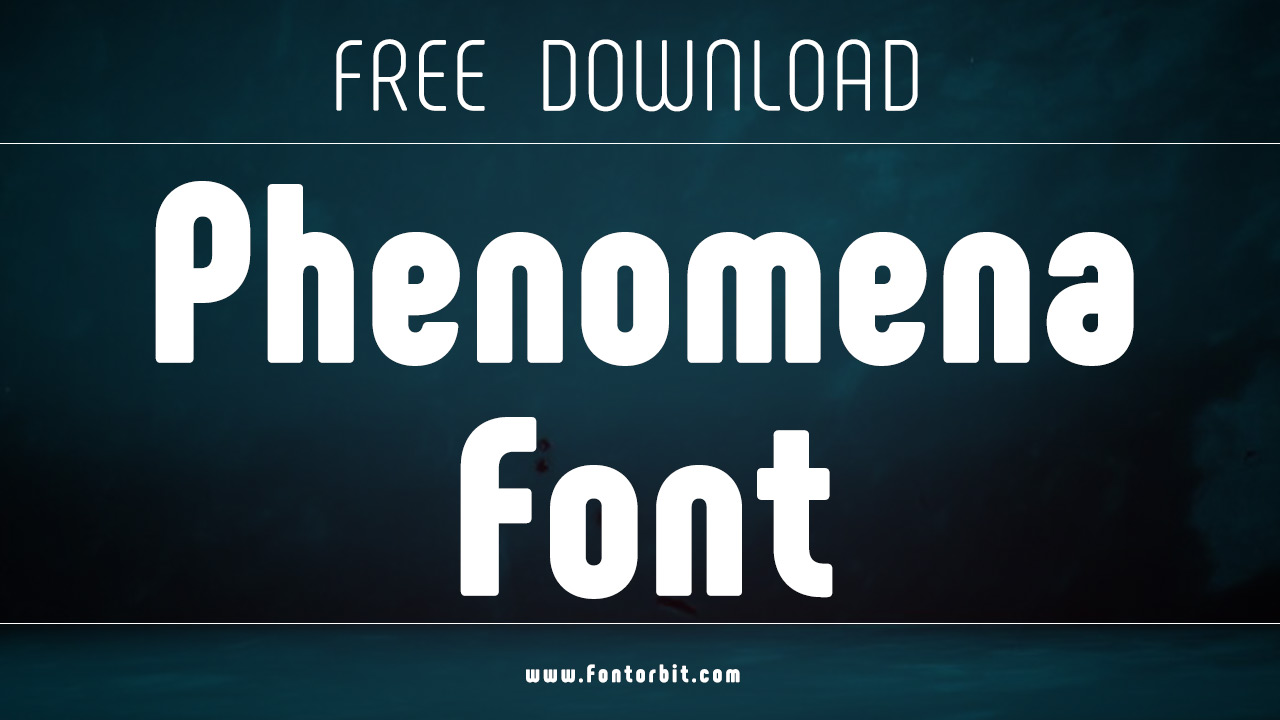
Phenomena is a contemporary sans-serif font designed by the Fontfabric team. Released in 2017, it is inspired by round geometric shapes, offering a clean, modern aesthetic that’s ideal for various design applications. The font family boasts an extensive range of styles and includes over 500 glyphs, making it versatile and adaptable for multilingual purposes.
Phenomena Font Family Includes
Phenomena is available in several weights, each contributing to its geometric and condensed appearance. This font family is free for both personal and commercial use.
- Phenomena Regular
- Phenomena ExtraLight
- Phenomena Thin
- Phenomena Light
- Phenomena Bold
- Phenomena ExtraBold
- Phenomena Black
Notable Uses Of Phenomena
This font is perfect for various creative projects such as:
- Logo design
- Packaging
- Editorial layouts
- Web and app design
- Posters and signage
Phenomena works well for projects where a clean, modern look is needed. Its geometric shapes make it particularly suited for:
- Minimalistic designs
- Technology-related projects
- Contemporary editorial content
Phenomena font stands out for its modern design and versatility, an excellent choice for various creative applications. Its geometric shapes and clean lines lend a contemporary feel that can elevate branding and editorial projects.
The font’s adaptability across multiple platforms ensures it remains relevant for designers seeking a fresh and stylish typeface. With its free availability for personal and commercial use, Phenomena is an invaluable resource for any design toolkit.
Q1: Does Phenomena Support Multiple Languages?
Yes, Phenomena supports various Latin-based languages, making it versatile for multilingual projects.
Q2: Is Phenomena Good For Web Design?
Phenomena is well-suited for web design due to its clean and modern aesthetic, ensuring good screen readability.
Q4: Can I Use Phenomena For A Logo Design?
Absolutely! Phenomena’s distinctive style makes it a great choice for logo design, providing a modern and unique look.